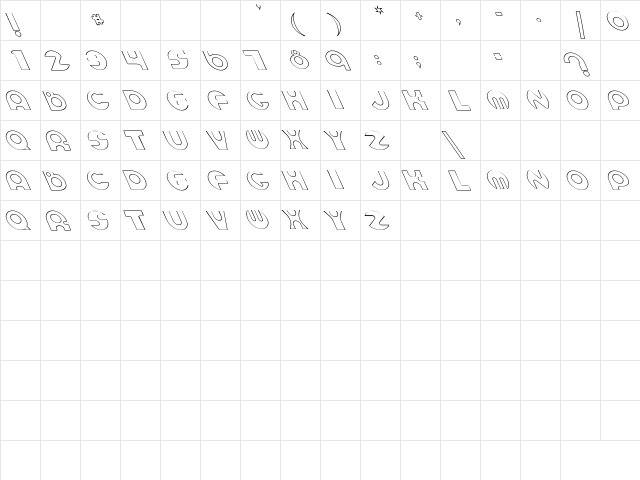
Espheres Hollow Lefty Regular
Design Context for Espheres Hollow Lefty Typeface
Espheres Hollow Lefty is a composed and adaptable typeface that performs quietly and consistently across a wide range of design contexts.